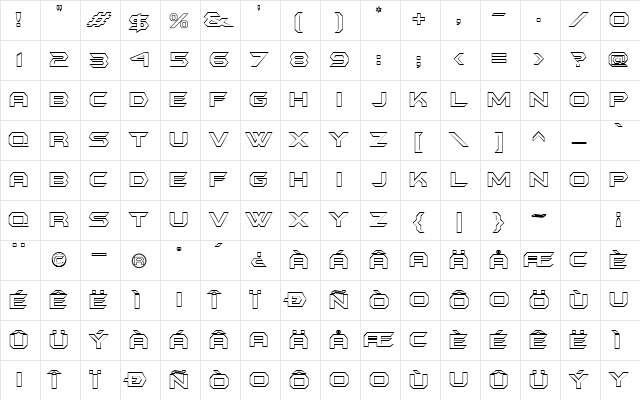
KnightOutline Regular
Design Context for KnightOutline Typeface
KnightOutline is built around its visual character rather than neutral utility — its distinctive forms are designed to make an impression at display sizes.
Font Pairing: Pair with a clean neutral sans-serif for body copy to let KnightOutline's character lead without overwhelming the composition.
Pro Tip: Treat KnightOutline as the centrepiece of your typographic hierarchy. One strong heading set in a decorative face can carry an entire layout.